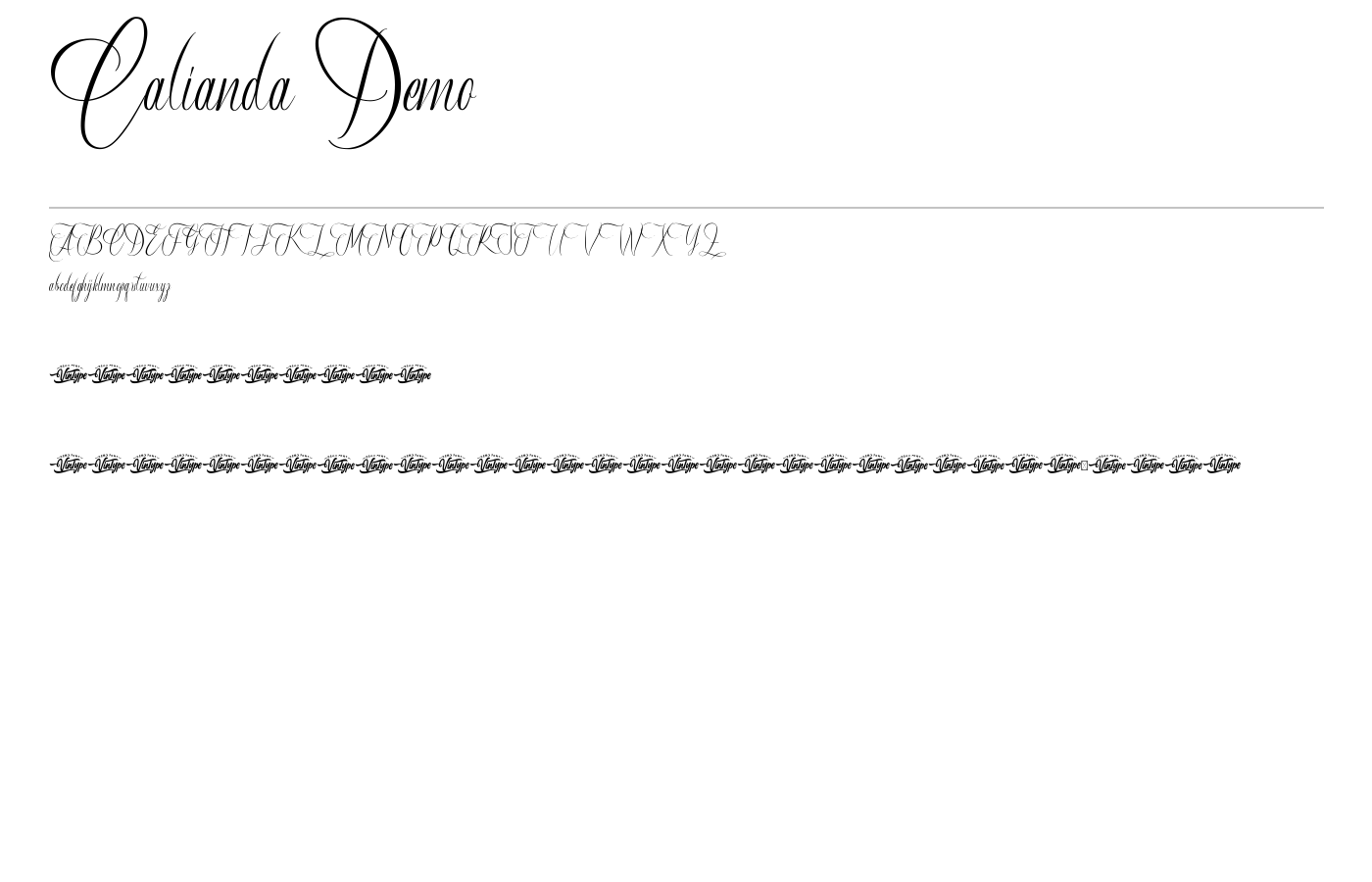
Calianda Demo is an elegant and highly decorative script font characterized by its thin, flowing strokes and intricate swashes that convey a refined, vintage charm. Its delicate lines and high contrast make it ideal for luxurious branding, wedding invitations, or any design needing a sophisticated, classic touch. This font works best in large sizes such as headlines or logos where its ornamental beauty can truly shine.
Calianda Demo Font
About Calianda Demo Font